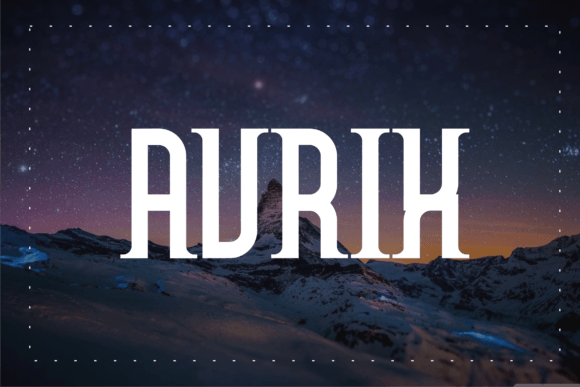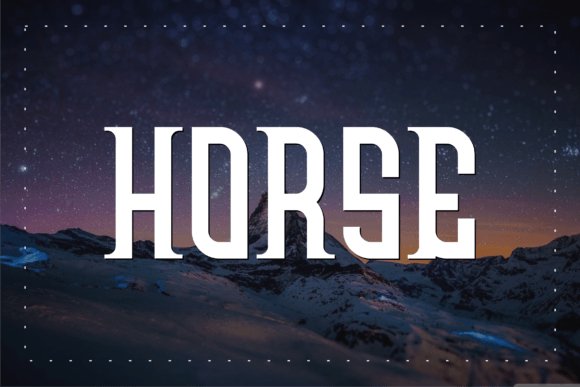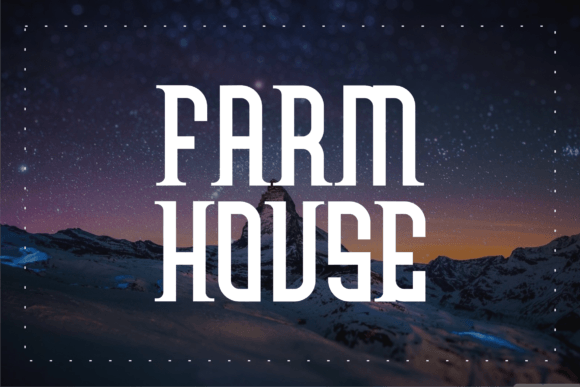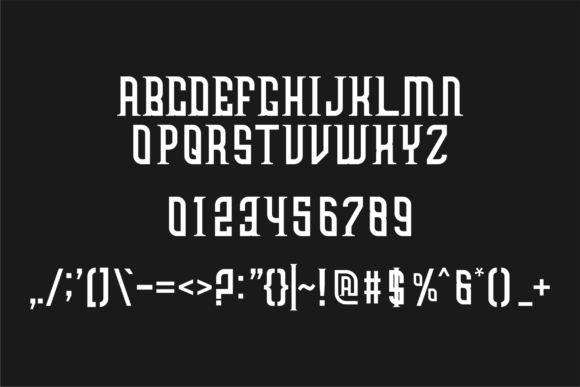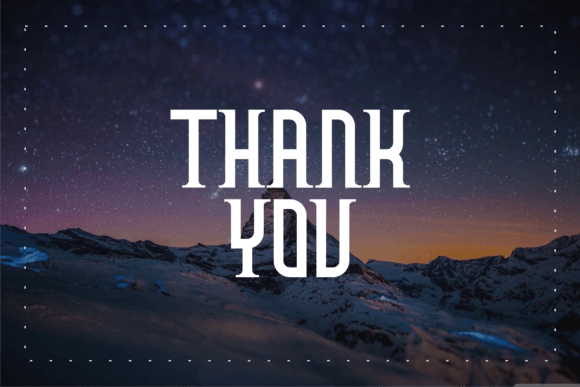
Aurix
Aurix: A Modern and Elegant Slab Serif Font
Aurix is a modern, elegant, and stylish slab serif font. Add it to your favorite designs and watch how it instantly adds a luxury spark to them.
Key Features of Aurix
• Modern Design: Offers a contemporary look suitable for various applications.
• Elegant Aesthetics: Brings a touch of sophistication to designs.
• Slab Serif Structure: Features distinctive serifs that add character and style.
• Luxurious Appeal: Adds a premium feel to any project it’s used in.
Ideal Uses for Aurix
Aurix’s unique characteristics make it particularly well-suited for:
When incorporating Aurix into your designs, consider these tips:
• Use for headlines or short blocks of text to showcase its elegant style.
• Experiment with different sizes to highlight the font’s modern features.
• Utilize its luxurious appeal to create designs that evoke sophistication and premium quality.
Aurix is an excellent choice for designers looking to add a modern and elegant slab serif font to their typographic toolkit. Its ability to bring a luxury spark to various design projects makes it stand out in the world of typography. Whether you’re working on high-end branding, creating packaging for luxury products, or developing content that requires a touch of sophistication, Aurix offers the perfect blend of modernity and elegance.
Furthermore, Aurix’s unique design allows it to shine in various contexts that demand a premium look. From fashion magazine layouts to upscale restaurant menus, this font can elevate your projects with its distinctive style. Its modern yet elegant appearance works particularly well in designs that aim to convey a sense of luxury and exclusivity.
In conclusion, Aurix is a font that truly captures the essence of modern elegance in typography. Its versatility across different high-end applications showcases its adaptability to various creative needs. For those looking to add a touch of luxurious charm to their work, Aurix can enhance themed creations with its distinctive style. It’s the perfect choice for designers seeking to make a sophisticated, stylish impact across a wide range of premium creative projects.